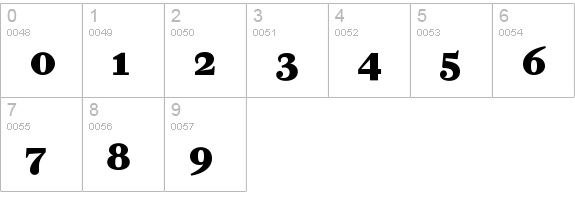
FarnhamDisplay-BlackOSF is a stunning and bold typeface that exudes elegance and sophistication. With its commanding presence and strong, clean lines, this font is perfect for making a statement in your designs. The sleek design of FarnhamDisplay-BlackOSF makes it ideal for headlines, branding, and any project that requires a touch of modern sophistication. The best part? FarnhamDisplay-BlackOSF is available for free download at FontsMarket.com. This means you can easily access this beautiful font and use it in your projects without any cost. Whether you're a designer looking to add a touch of luxury to your work or a business owner wanting to elevate your brand, FarnhamDisplay-BlackOSF is the perfect choice. Download it today and bring your designs to the next level!